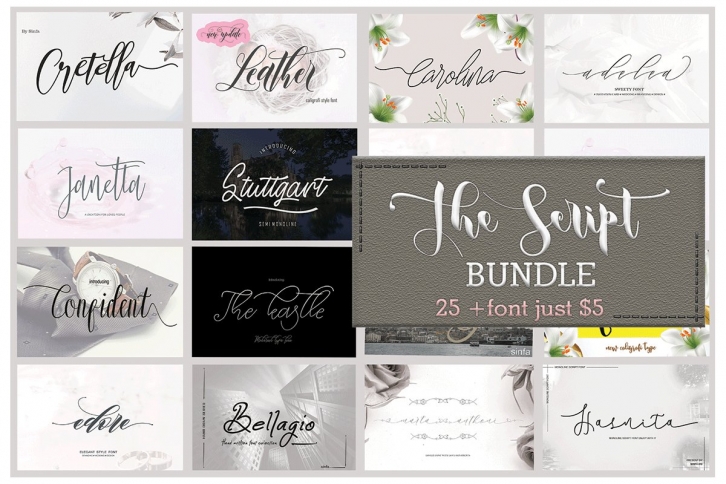
The Script bundel is a trendy and unique font with an authentic style. It was designed by sinfa.co and it's a great choice for creative people who need such a font. It was released on April 3, 2021 and the file size is 17.72 MB. The Script bundel will add an organic vibe to any design idea!